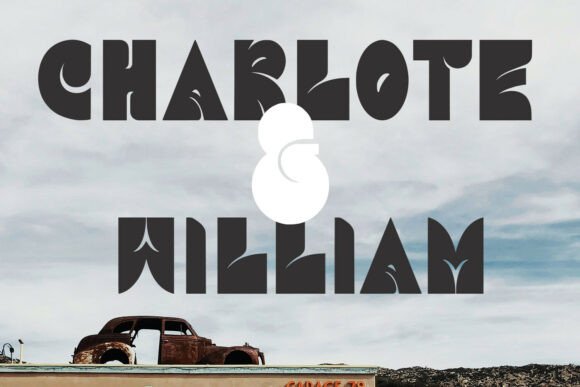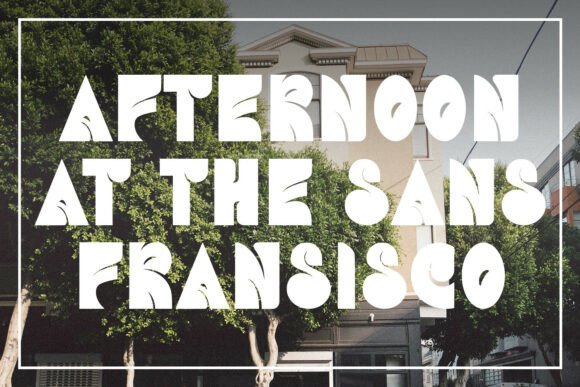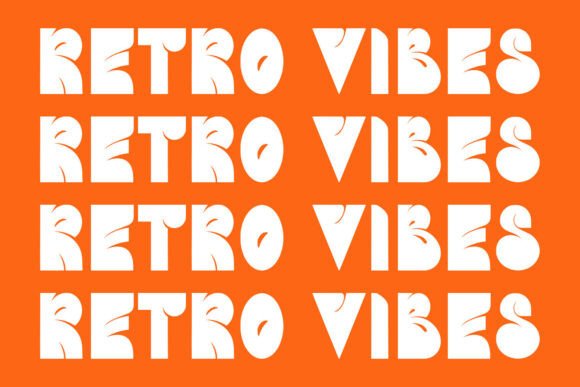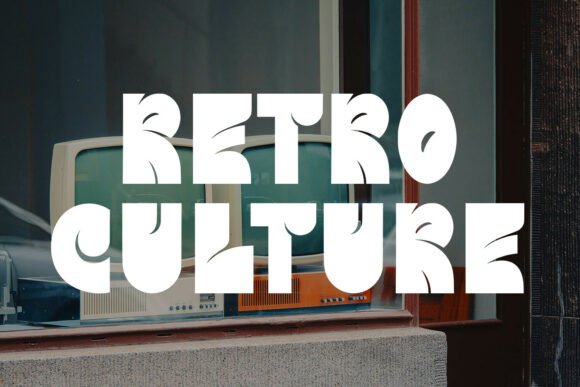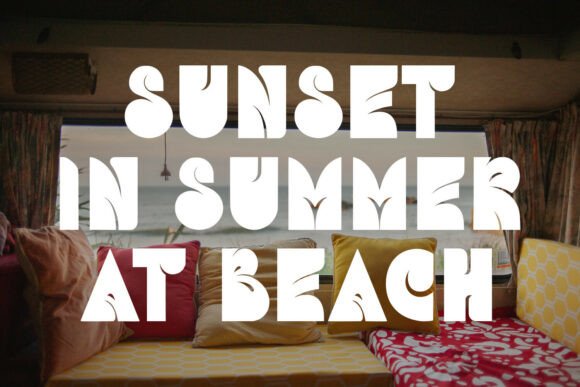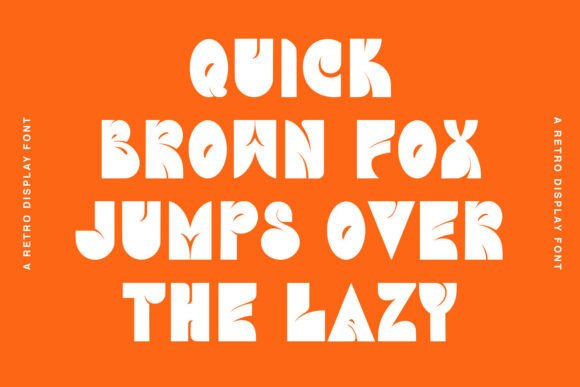
Introduction to Futtalo Font
Remember the rush of excitement you felt when you stumbled upon that perfect design resource? The one that made your project stand out, leaving a lasting impression on your audience? For designers, those moments are what make all the hard work worth it. And, we’re here to introduce you to one such game-changer – the Futtalo Font.
This high-quality font is more than just a pretty face; it’s a versatile design tool that brings a nostalgic flair and modern edge to any creative project. With its bold strokes, groovy curves, and quirky letterforms, Futtalo Font adds character to even the most mundane designs, making them visually exciting and memorable.
Key Features of Futtalo Font
- High-quality, versatile design suitable for various creative projects, including digital art and graphic design.
- Features a large character set, including uppercase and lowercase letters, numbers, and special characters, making it a comprehensive design resource.
- Unique characteristics include a modern, minimalist aesthetic and a wide range of stylistic variations, allowing for creative experimentation and customization.
Honest Review: Futtalo Font
As a designer, I’m always on the lookout for high-quality design resources to elevate my creative projects. Recently, I came across the Futtalo Font, and I’m excited to share my honest review with you.
- Unique and modern design aesthetic
- Clear and legible typography
The Futtalo Font is perfect for designers who want to add a touch of modernity to their designs. It’s versatile and can be used for a wide range of creative projects, from branding to editorial design.
- Limited character set, may not be suitable for long-form text
- Not as extensive as some other font libraries
Overall, I’m impressed with the Futtalo Font’s design and usability. While it may have some limitations, it’s a great addition to any designer’s toolkit. I’d definitely recommend it to fellow designers looking for a modern and sleek font.
To get the most out of the Futtalo Font, experiment with different font sizes, colors, and combinations to create unique designs. Use it in conjunction with other design elements to add depth and visual interest to your project.
Common Use Cases for Futtalo Font
The Futtalo Font is suitable for a wide range of creative projects, including social media graphics, presentations, logos, typography elements, and more. Its high-quality design and transparent background make it a versatile design resource for any project.